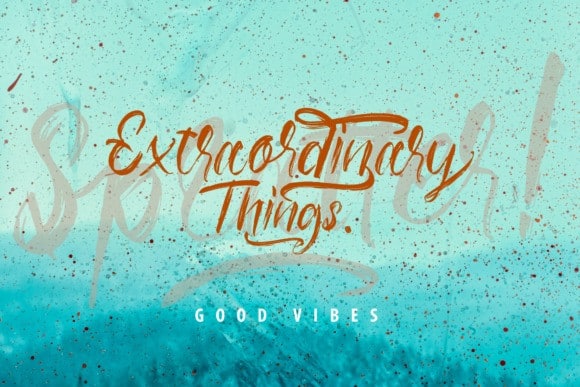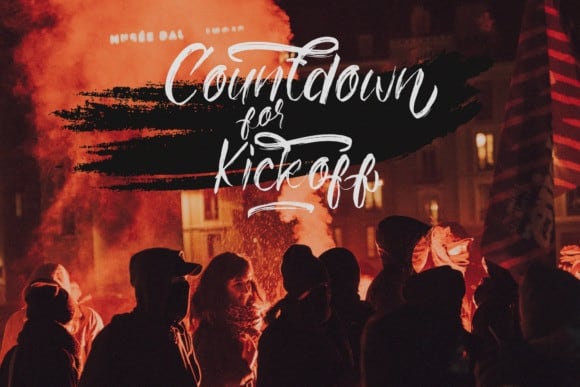
Ottodidact Brush Font
Brush textured with casual handwritten gesture, say hi to Ottodidact Brush Font. This is hot and tasty font that very recommended for food branding such as Burger, BBQ, Coffee and Pizza. The Ottodidact has been designed to fit a wide range of projects from urban style to classic branding with a full alternative characters set to completely change the look of your design. It includes a set of swashes that will add a nice finishing touch to your projects!